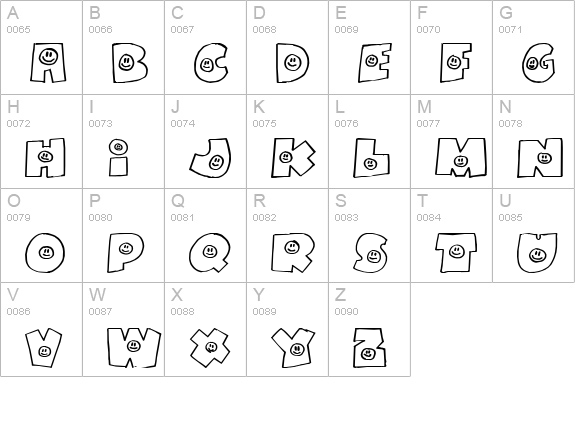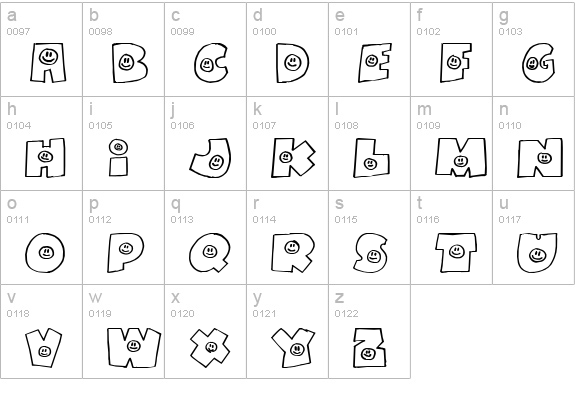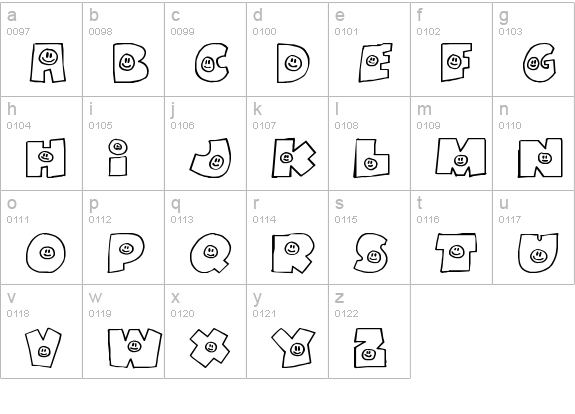
FatBoySmiles Font Details
FatBoySmiles font is a whimsical and playful typeface that radiates joy and positivity. Its chubby letters and rounded edges give off a friendly and welcoming vibe, perfect for adding a touch of fun to your designs. Whether you're working on a children's book, greeting cards, or branding project, FatBoySmiles will surely bring a smile to your audience's face. The best part? This delightful font is available for free download at FontsMarket.com. Embrace the lighthearted charm of FatBoySmiles and let your creativity shine with this unique and lovable typeface.